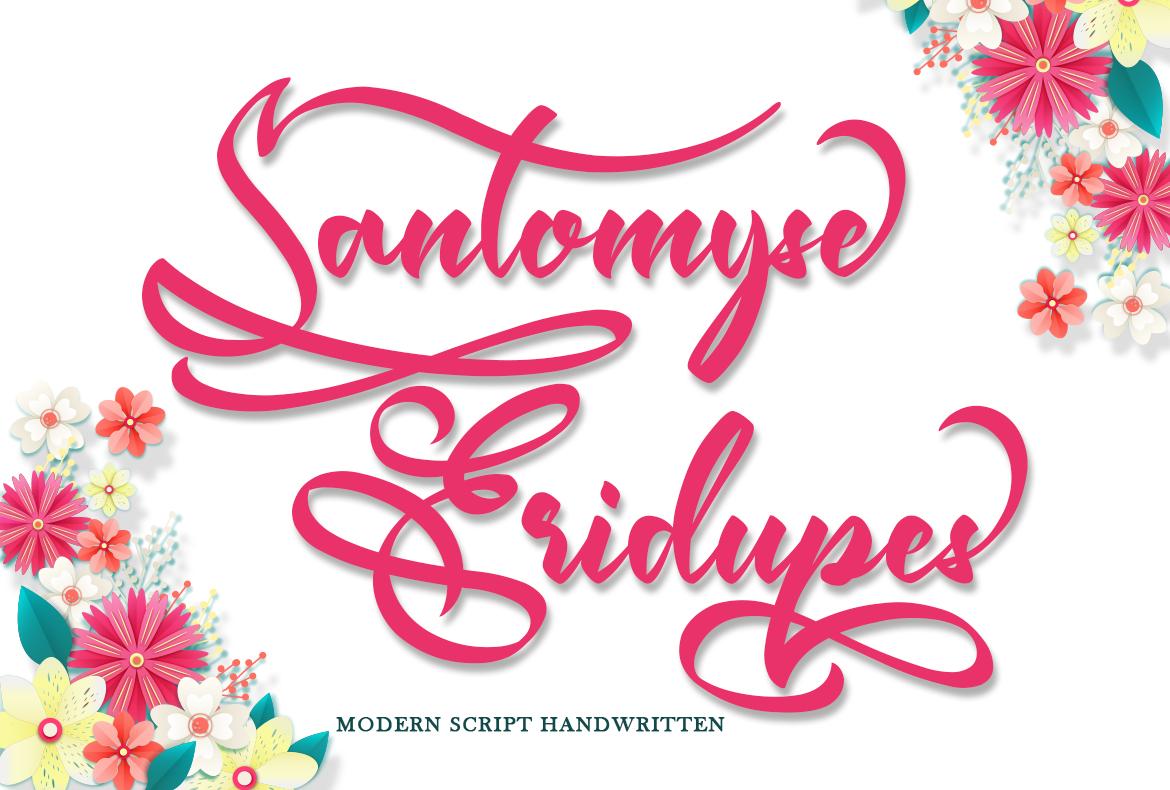
Santomyse Eridupes Font Description
Santomyse Eridupes is a delicate, elegant and flowing handwritten font. It has beautiful and well balanced characters and as a result, it matches a wide pool of designs. Add it to your most creative ideas and notice how it makes them come alive!